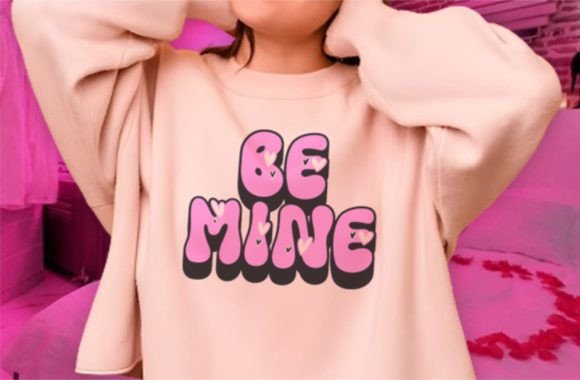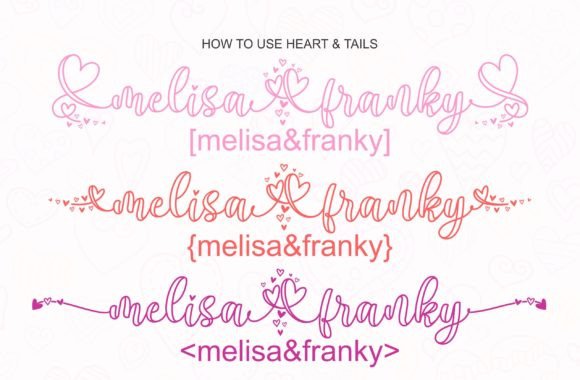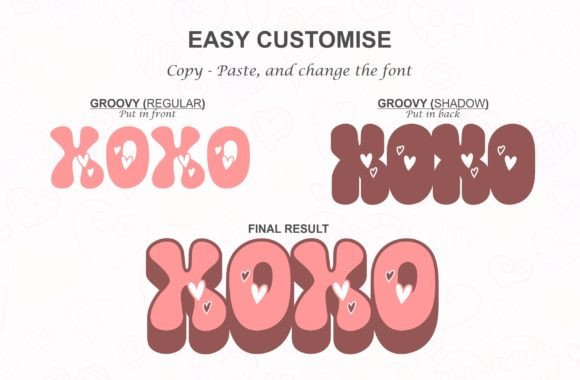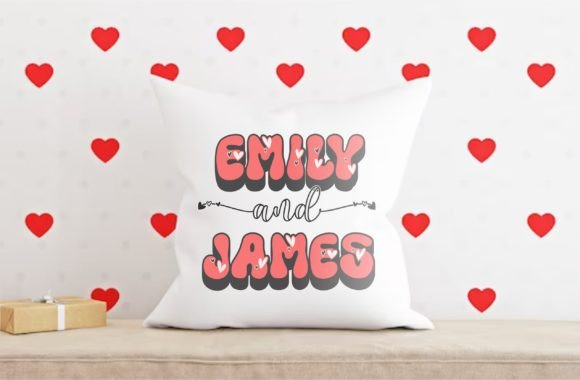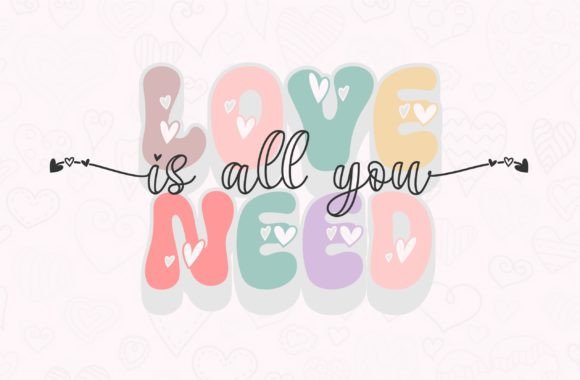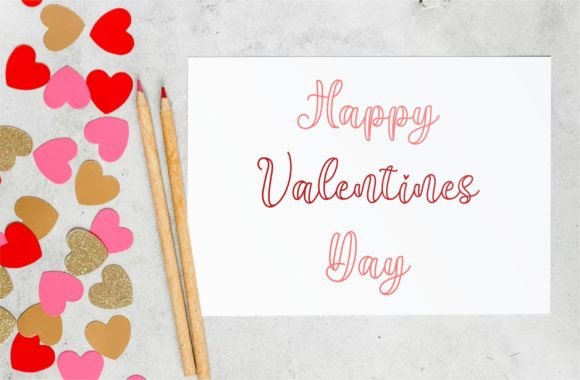
Get Ready to Swoon: Introducing the Groovy Valentine’s Font
As a designer, have you ever stared at a blank canvas, trying to conjure up the perfect Valentine’s Day design? The pressure to create something truly special can be overwhelming, but what if you had the perfect tool to make your job easier? Enter the Groovy Valentine’s Font, a groovy duo font that combines a cool, cute, and fun display font with a matching script font, complete with a heart ornament that’s guaranteed to make an impact.
This font is a game-changer for designers, offering a range of creative possibilities for Valentine’s Day designs, from t-shirts and stickers to weddings and more. With the Groovy Valentine’s Font, you can add a touch of retro charm to any design, making it a must-have for anyone looking to add a little love to their creations.
Groovy Valentine’s Font Key Features
- Font Style: A playful, cursive script font designed specifically for Valentine’s Day and romantic occasions.
- Character Count: The font includes a wide range of characters, including uppercase and lowercase letters, numbers, and special symbols.
- Unique Characteristics: The font features swashes, flourishes, and other decorative elements that add a touch of whimsy and romance to any design.
Groovy Valentine’s Font Review
Overall, I think “Groovy Valentine’s Font” is a fun and playful addition to any design project. Here’s what works well:
- ✨ Unique and quirky design that stands out from more traditional fonts
- ✨ Great for Valentine’s Day-themed projects, but also versatile enough to use in other contexts
- ✨ Comes in a range of weights and styles, making it easy to customize for different needs
- ⚠️ Limited character set, which may make it difficult to use for longer blocks of text
- ⚠️ May not be the best choice for formal or professional projects, as its playful nature may come across as unprofessional
Overall, I think “Groovy Valentine’s Font” is a great choice for designers looking to add a little whimsy to their projects. While it may not be suitable for every project, its unique design and versatility make it a valuable addition to any design library.
Use Groovy Valentine’s Font to add a touch of whimsy and romance to your designs.
Combine it with other Valentine’s Day-themed elements for a cohesive look.
Use Groovy Valentine’s Font for:
Valentine’s Day greeting cards and invitations.
Wedding stationery and decorations.
Romantic social media posts and advertisements.
Alternatives to Groovy Valentine’s Font
Great Vibes is a beautiful, handwritten font perfect for creating a romantic atmosphere. It has a similar feel to Groovy Valentine’s Font, but with a more elegant and sophisticated touch. Use it for wedding invitations, love letters, or any other project that requires a touch of whimsy and romance.
Comparison to Groovy Valentine’s Font: While both fonts are handwritten and romantic, Great Vibes has a more refined and polished look, making it suitable for more formal occasions.
Pacifico is a modern, elegant script font that exudes a sense of calmness and serenity. It’s ideal for projects that require a touch of sophistication and subtlety, such as wedding invitations, menus, or event programs. Pacifico has a more refined and precise look compared to Groovy Valentine’s Font.
Comparison to Groovy Valentine’s Font: Pacifico has a more subtle and understated look, making it perfect for projects where you want to create a sense of calmness and serenity.
Dancing Script is a lively, energetic font that’s perfect for creating a fun and playful atmosphere. It’s ideal for projects such as party invitations, social media posts, or any other project that requires a touch of whimsy and fun. Dancing Script has a more energetic and playful look compared to Groovy Valentine’s Font.